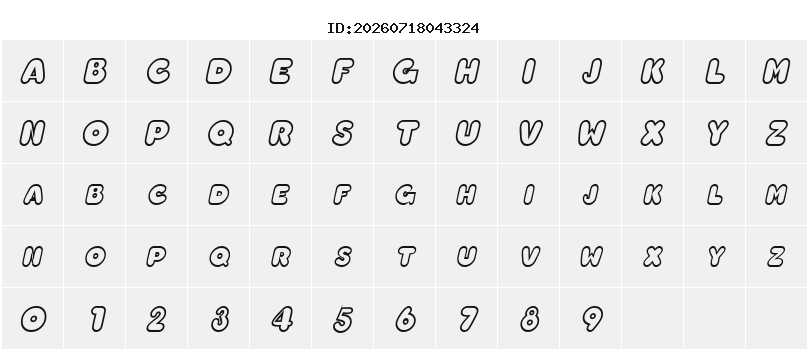
• Font Name: ChubbyOutline
• Full Font Name: ChubbyOutline Bold Italic
About ChubbyOutline.ttf
ChubbyOutline.ttf is a modern, elegant sans-serif font designed for ultimate readability and visual harmony. Perfect for branding, headlines, web design, and print materials.